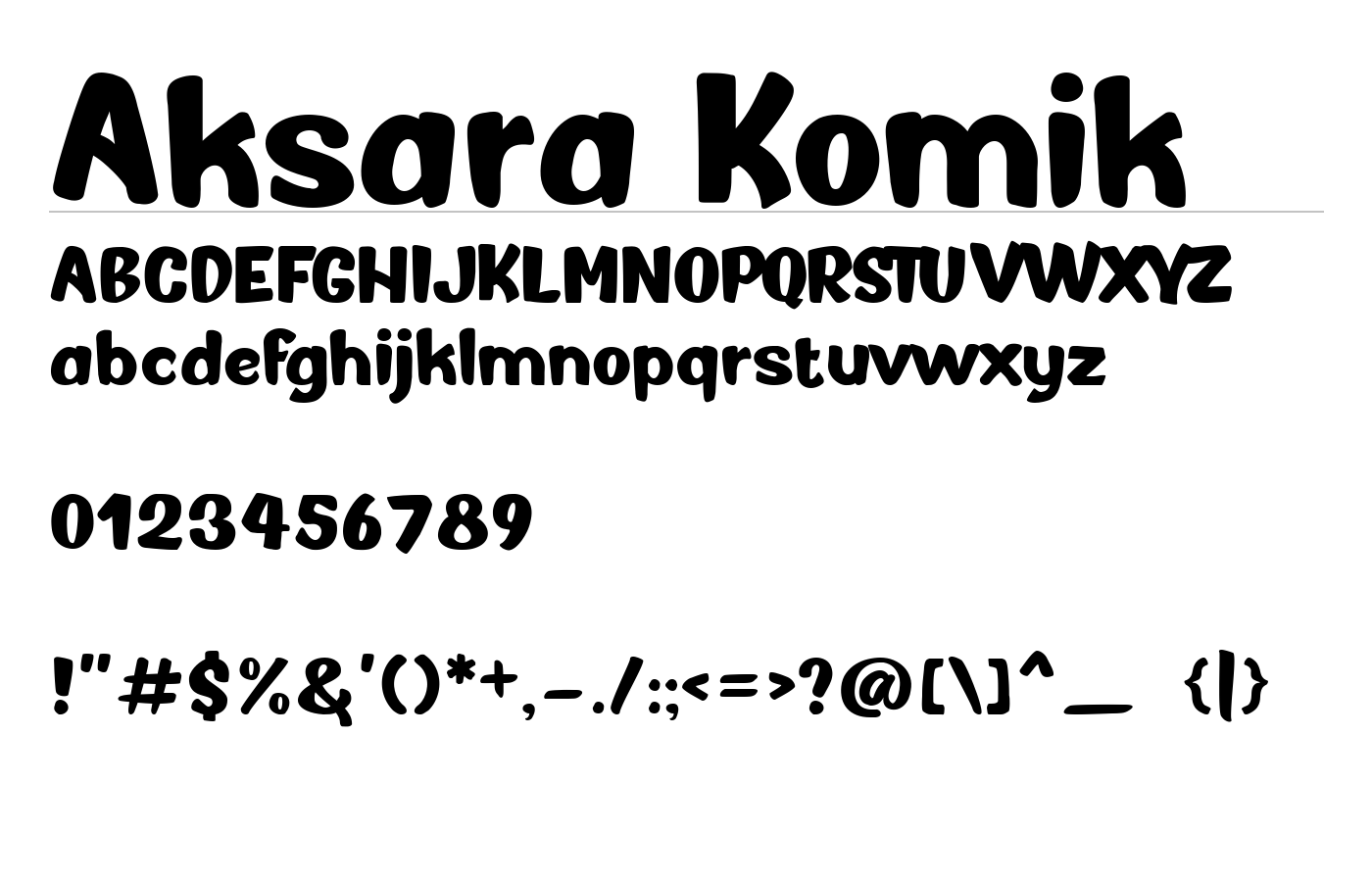
Aksara Komik is a bold, playful sans serif font with a friendly, hand-drawn feel that brings a casual and approachable vibe. Its chunky, rounded letterforms with moderate contrast and slightly irregular shapes make it perfect for comic-style designs, children’s books, and fun branding that aims to be lively and inviting. This font works well in headlines, posters, and any project that benefits from an informal, energetic touch.
Aksara Komik Font